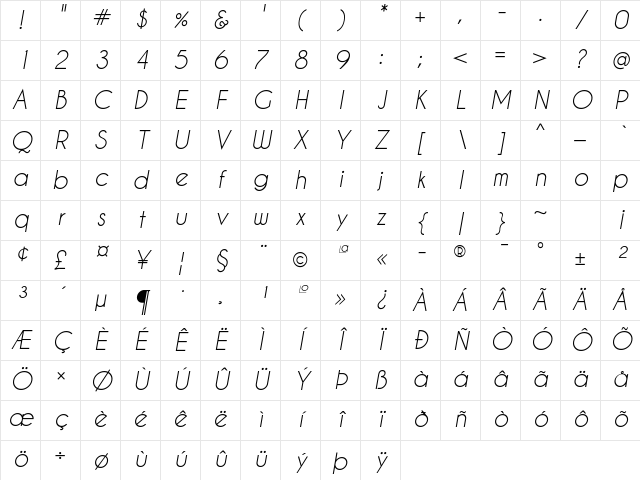
Caviar Dreams Italic
Designer: Lauren Thompson
Complete Caviar Dreams Italic glyph index. Displaying only characters natively supported by Caviar Dreams Italic font.
Design Context for Caviar Dreams
Caviar Dreams is a composed and adaptable typeface that performs quietly and consistently across a wide range of design contexts. The slanted form adds forward momentum and visual energy.
Pro Tip: Use Caviar Dreams for emphasis, pull quotes, and subheadings where its slanted energy can add rhythm to the layout.